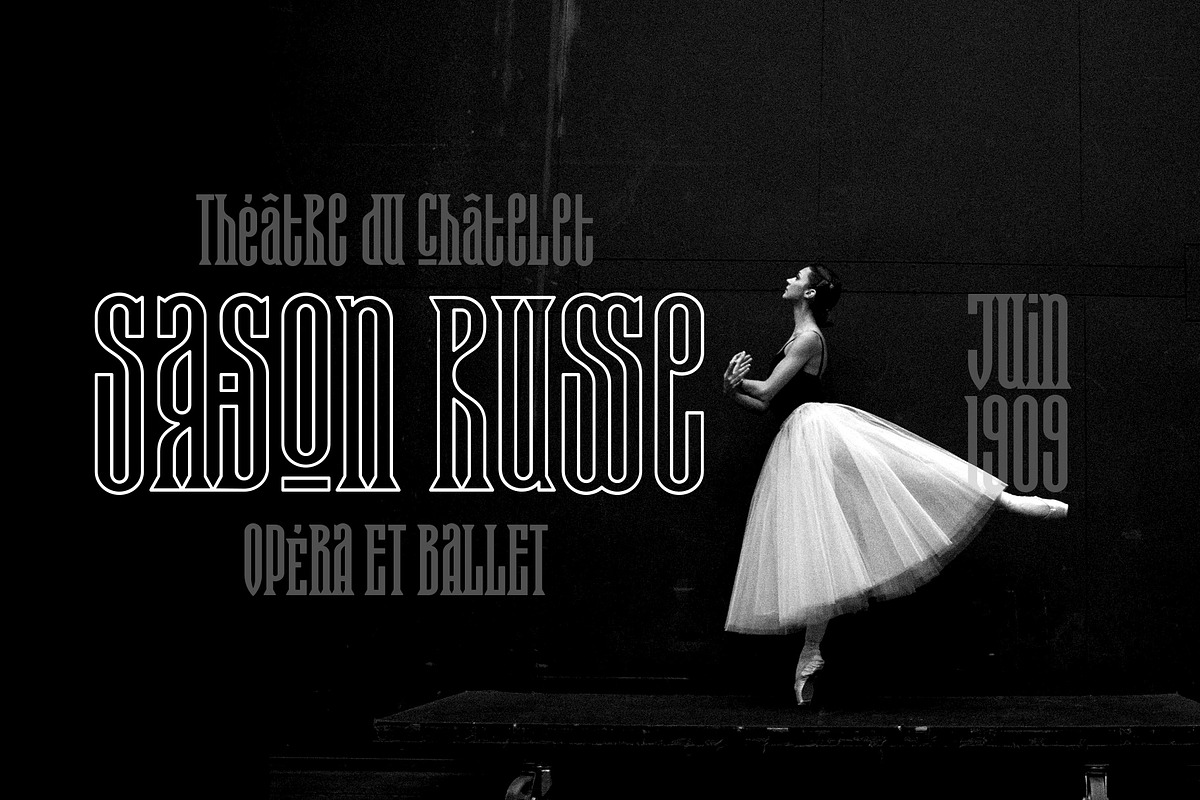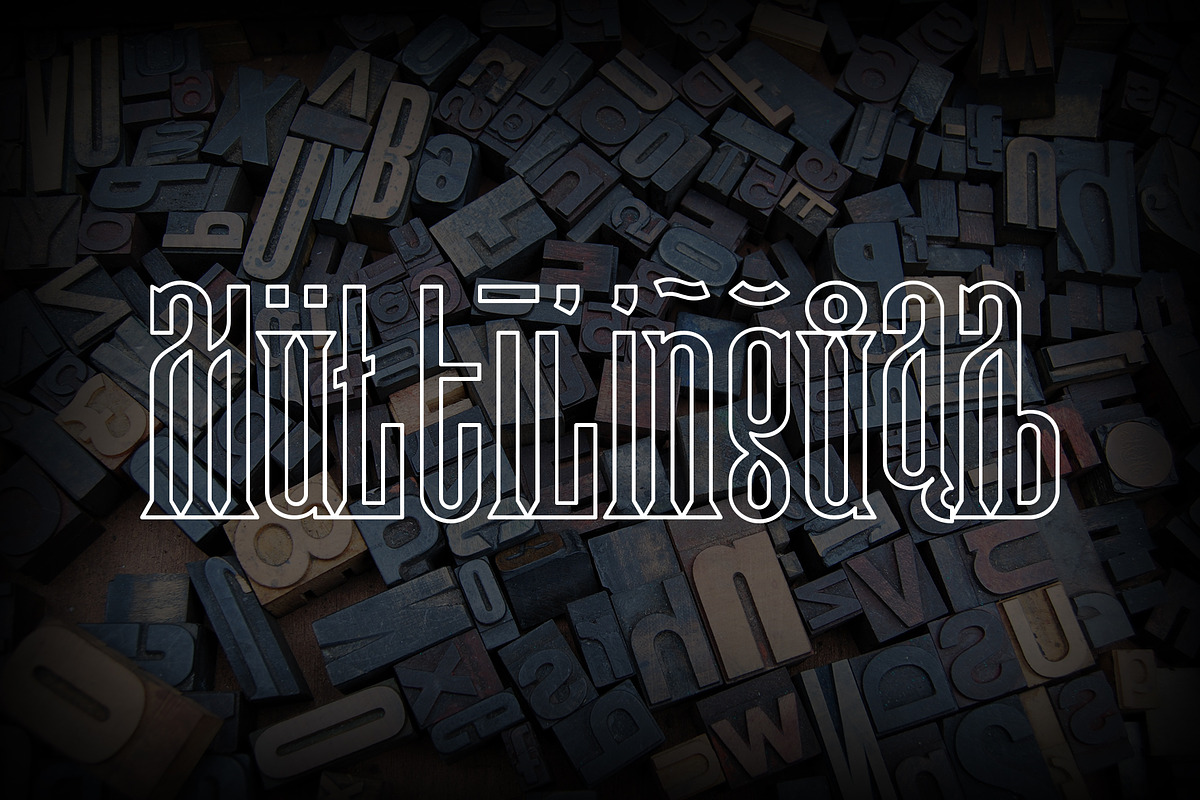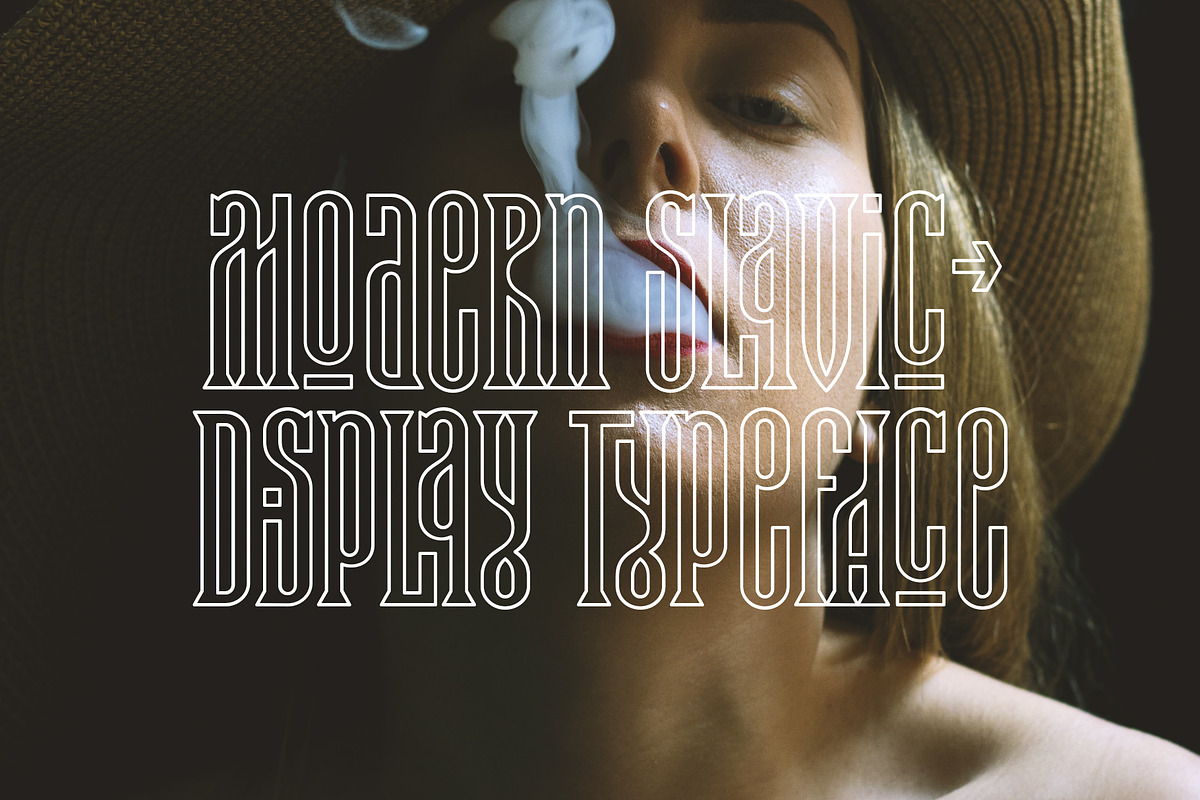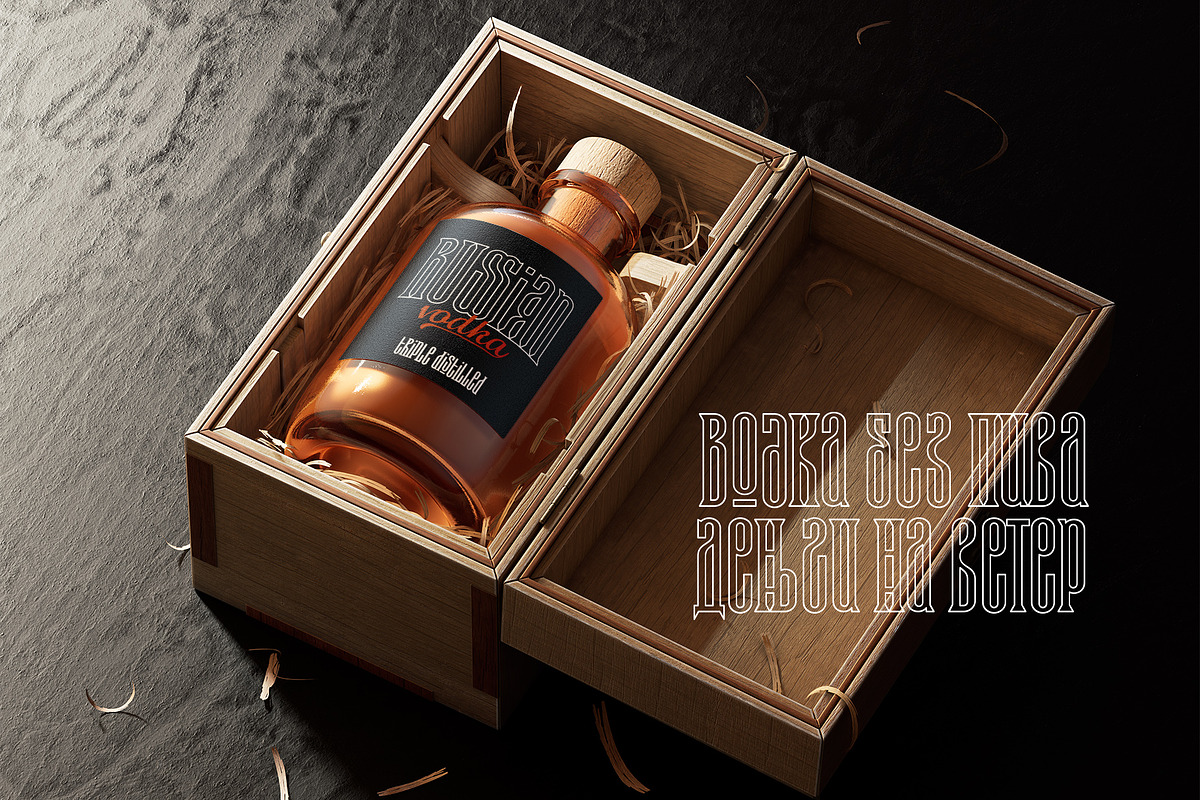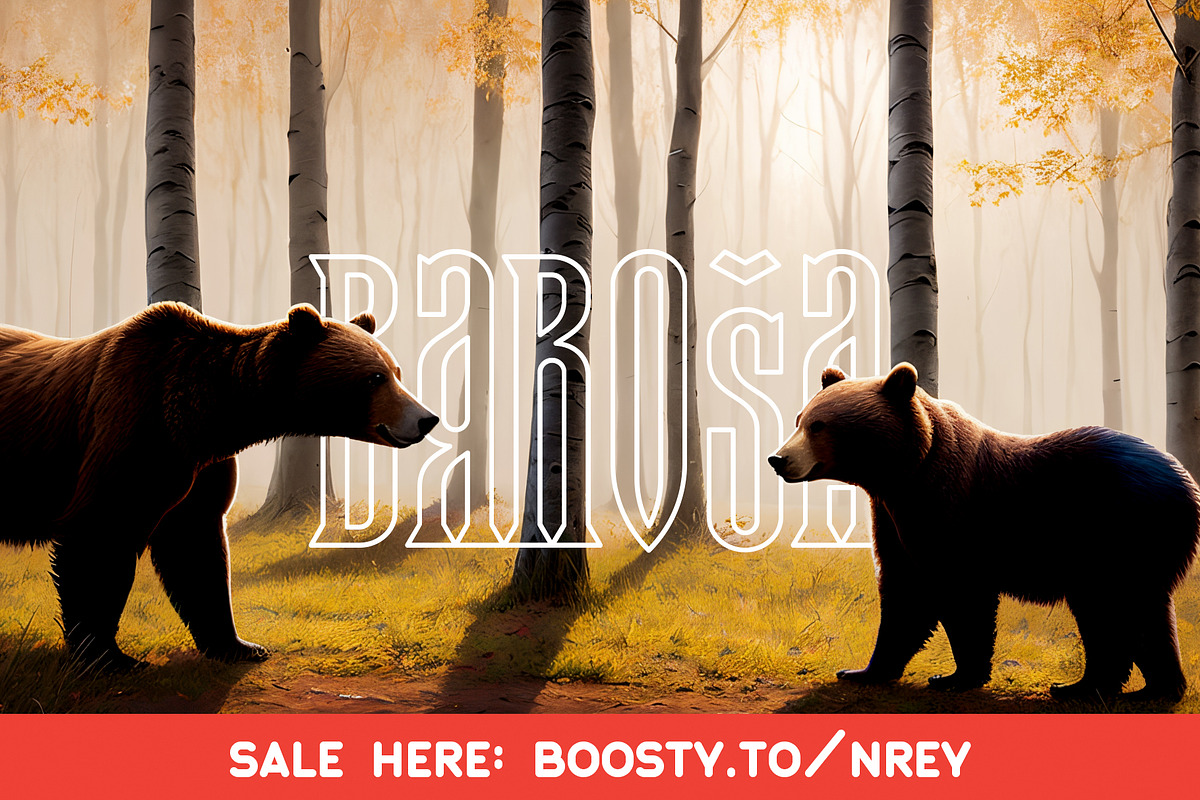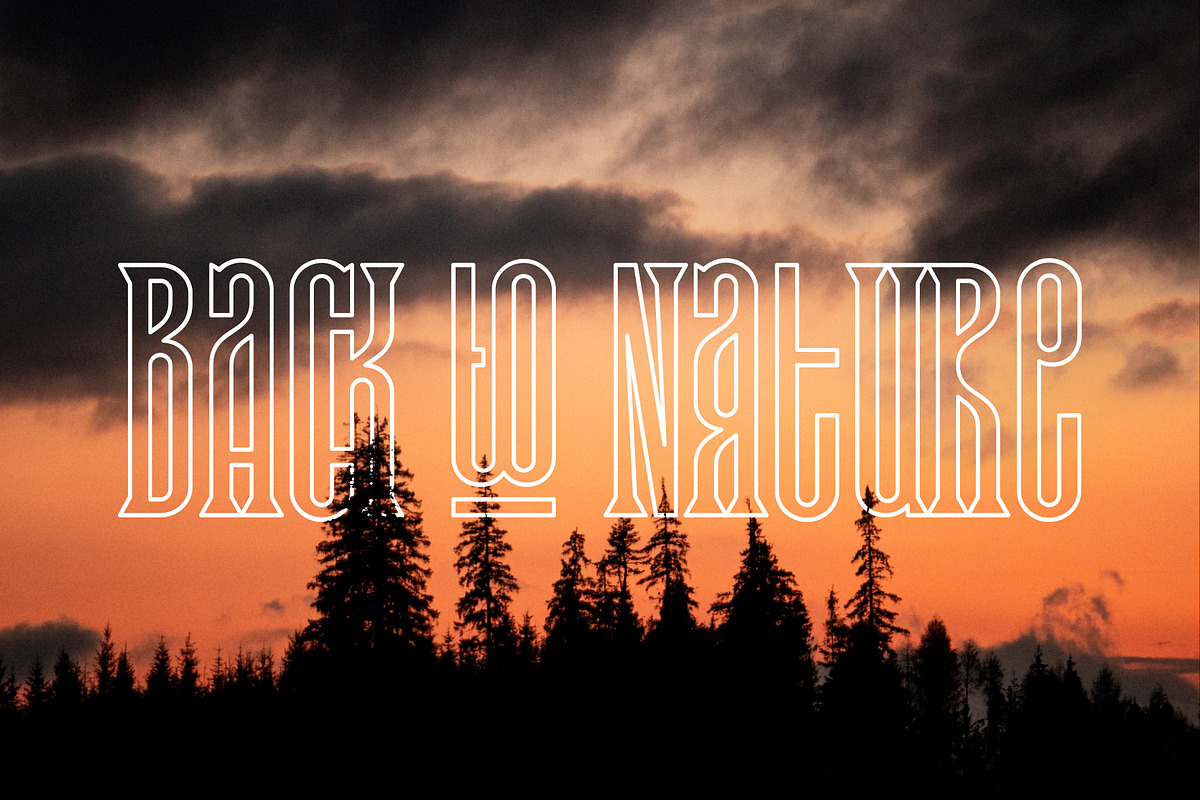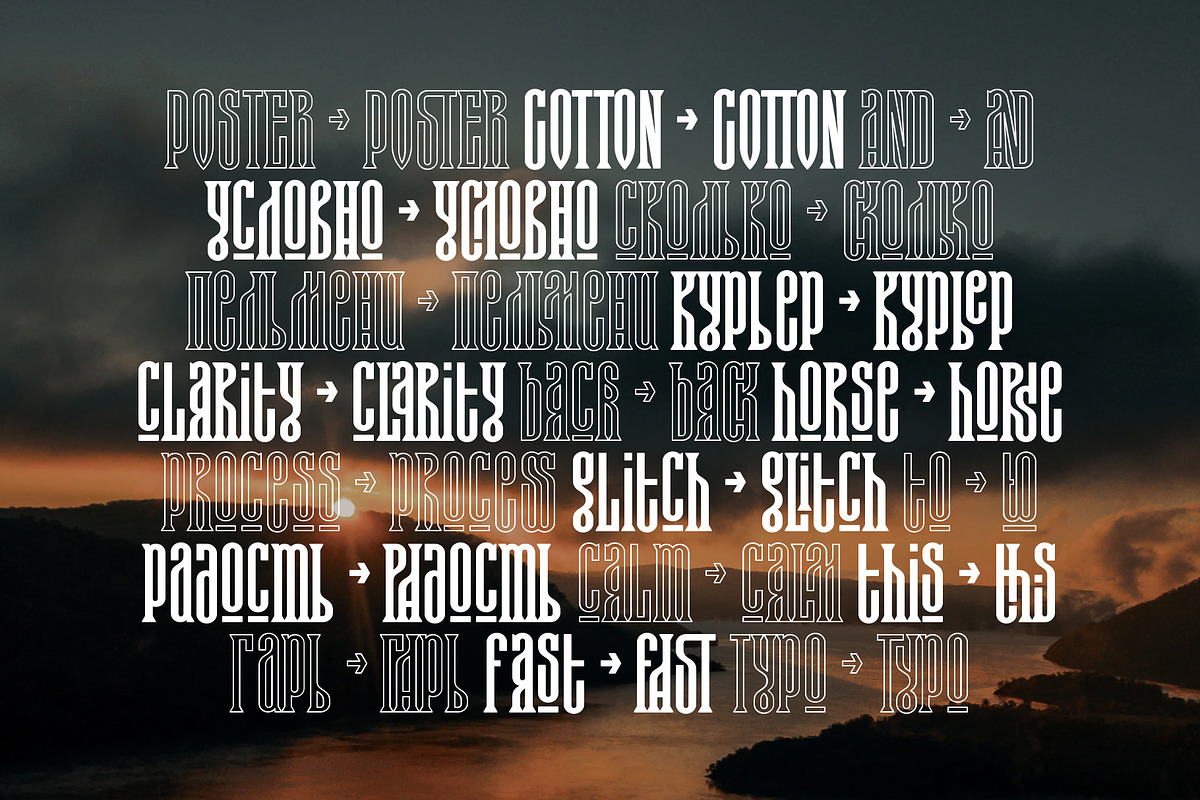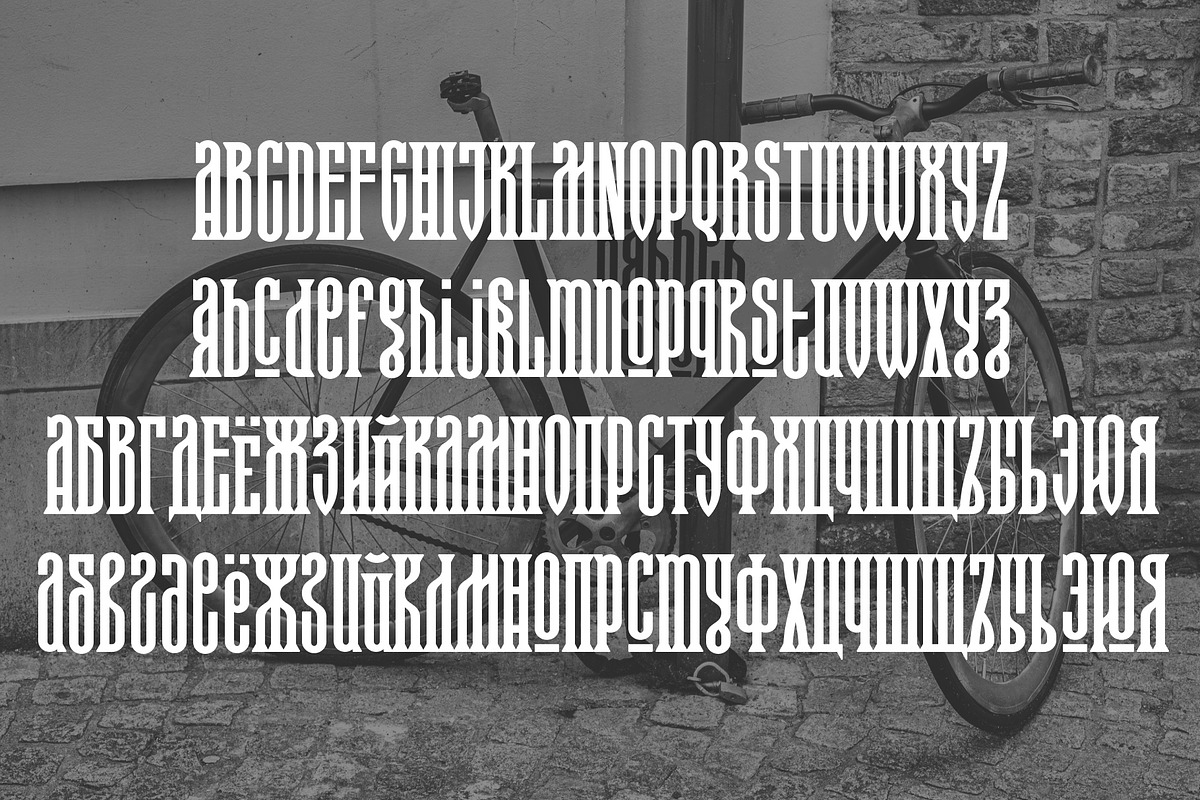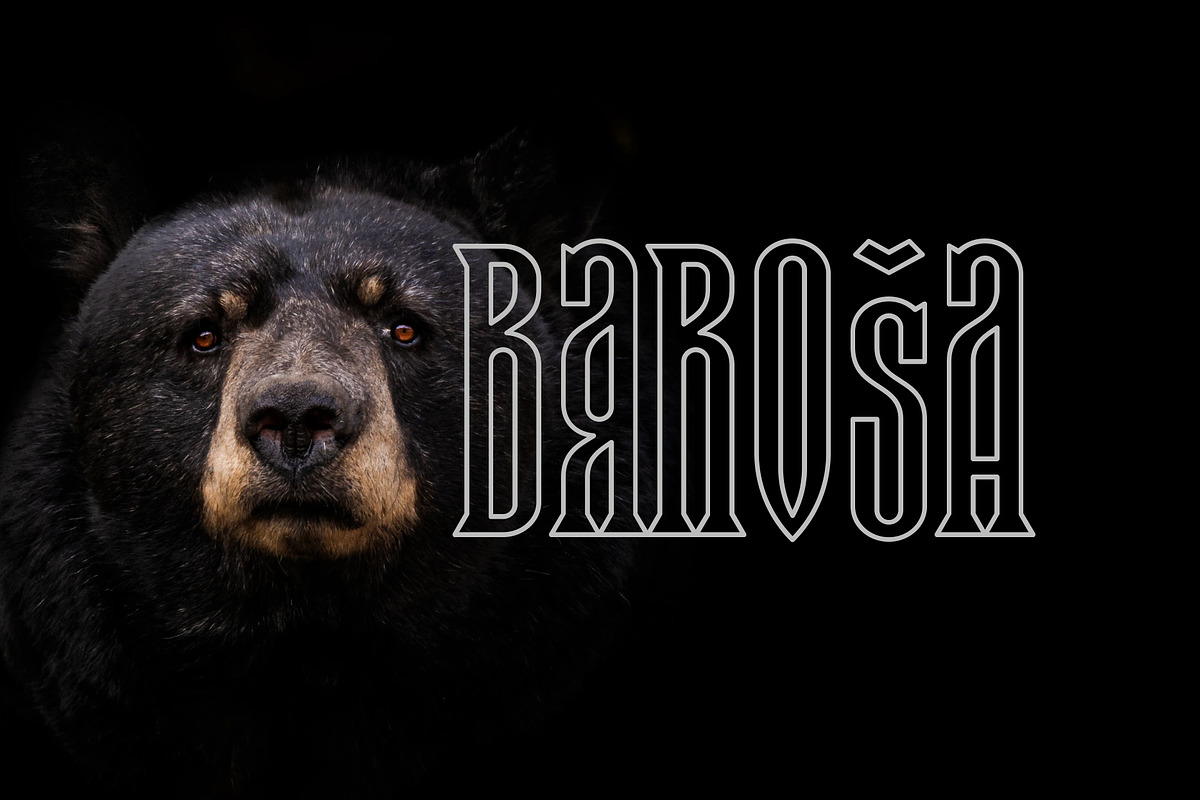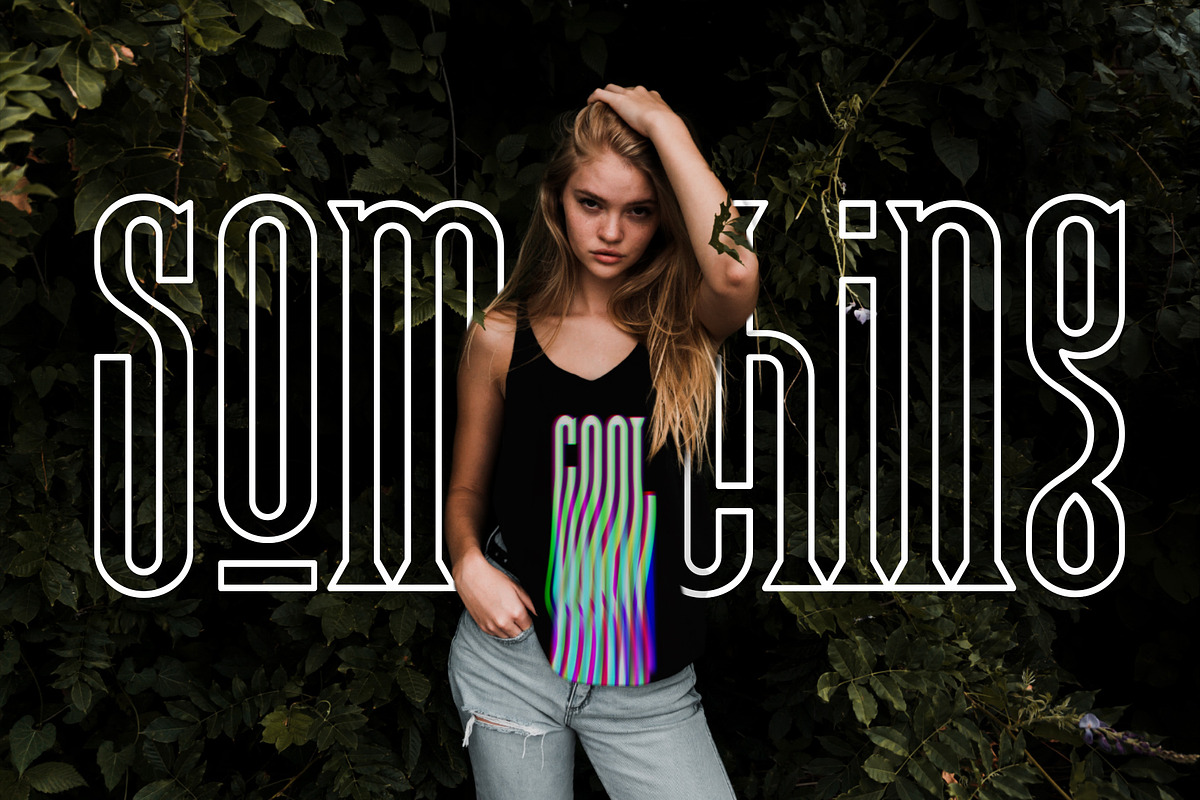
Baroša
Hi, friends! Introducing new typeface - Barosa.
It is a new display font with 2 styles and cool characters. Typeface designed as monolite, all descending and ascending elements has same size as most characters.
Barosa has multilingual support includes cyrillic. Many ligatures make your typography most variable. Barosa Typeface was inspired by ethnic slavonic style which combining classic typography with awesome features bring classic touch on this culture.
It works well with normal size text and for large displays or short words. You may combine uppercase and smallcase in the text body, as alternates symbols. The Barosa typeface is suitable for : product packaging, labeling, logo, classic shop, ethnic shop, titles, etc